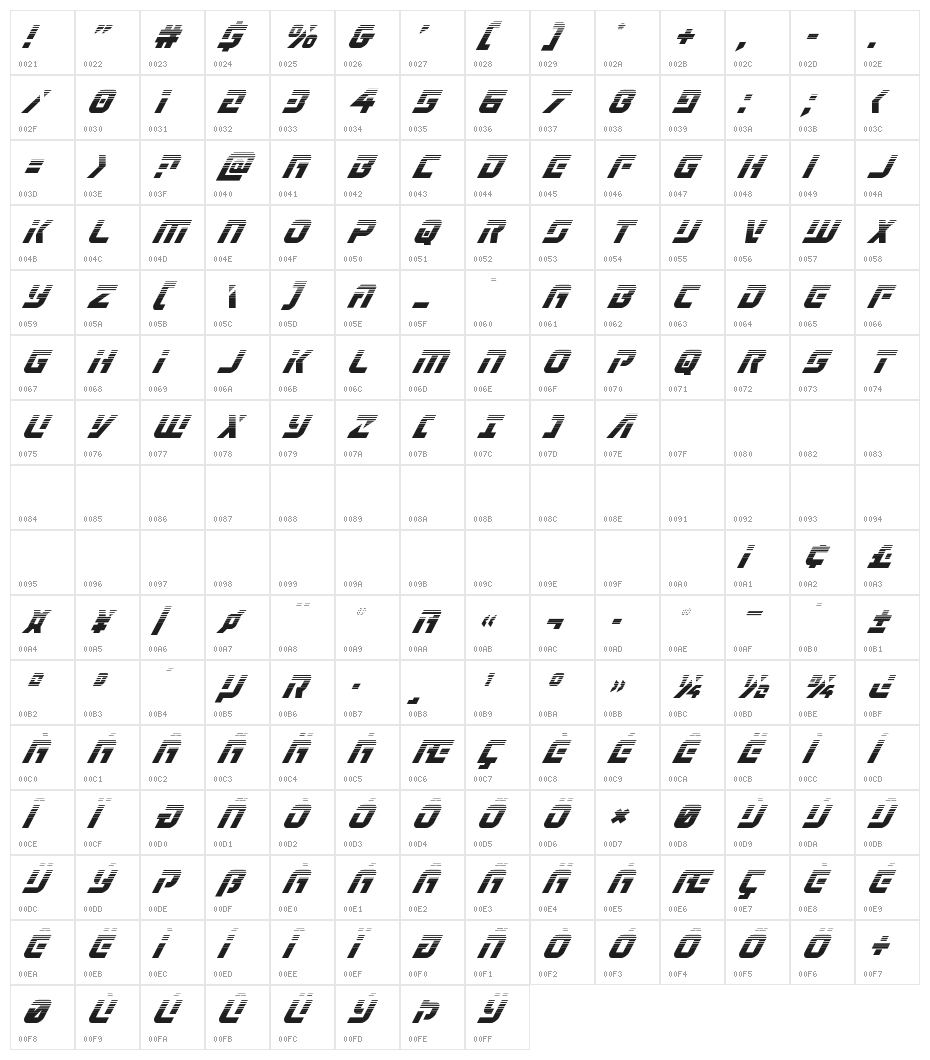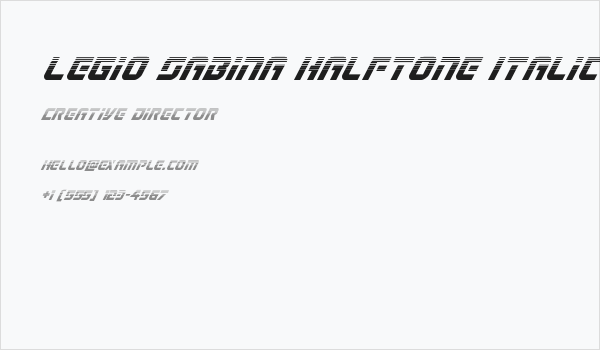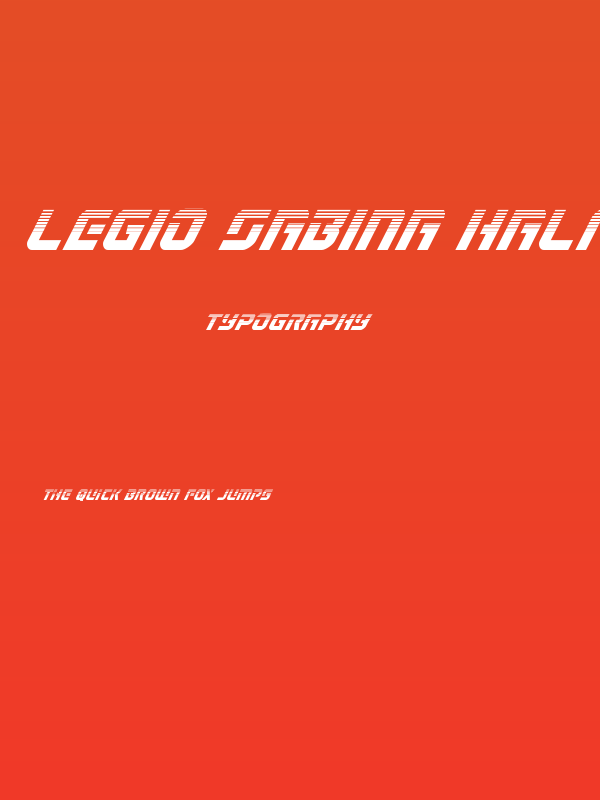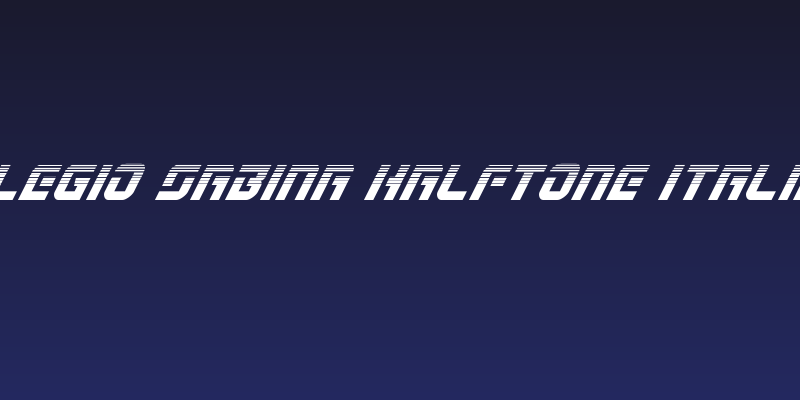
Legio Sabina Halftone Italic Font
Legio Sabina Halftone Italic Description
This font features a bold, italicized style with a distinctive halftone effect that gives it a dynamic and futuristic appearance. The characters are designed with a series of horizontal lines that create a sense of movement and energy. The uppercase and lowercase letters maintain a consistent width, contributing to a uniform and cohesive look. The numbers and special characters are crafted with the same attention to detail, ensuring they blend seamlessly with the alphabet. The overall design is modern and eye-catching, making it suitable for projects that require a bold statement.
| Proposed Projects | Ideal for branding, posters, video game graphics, and any project needing a modern, energetic touch. |